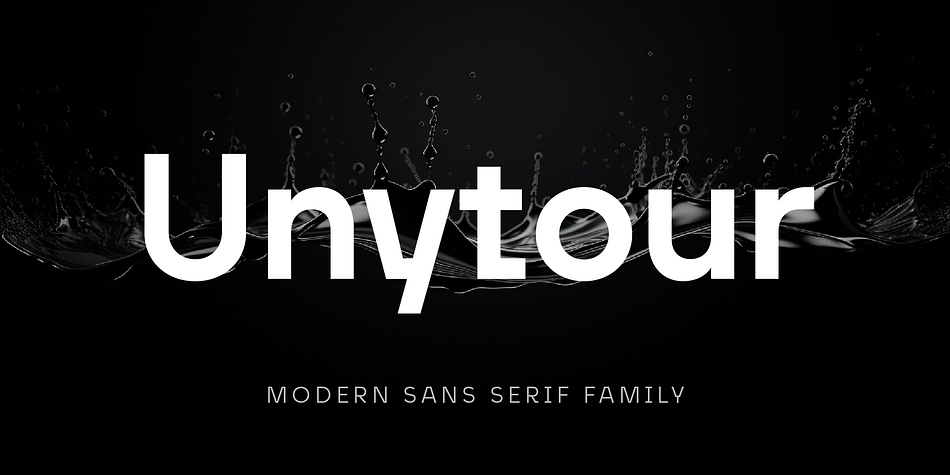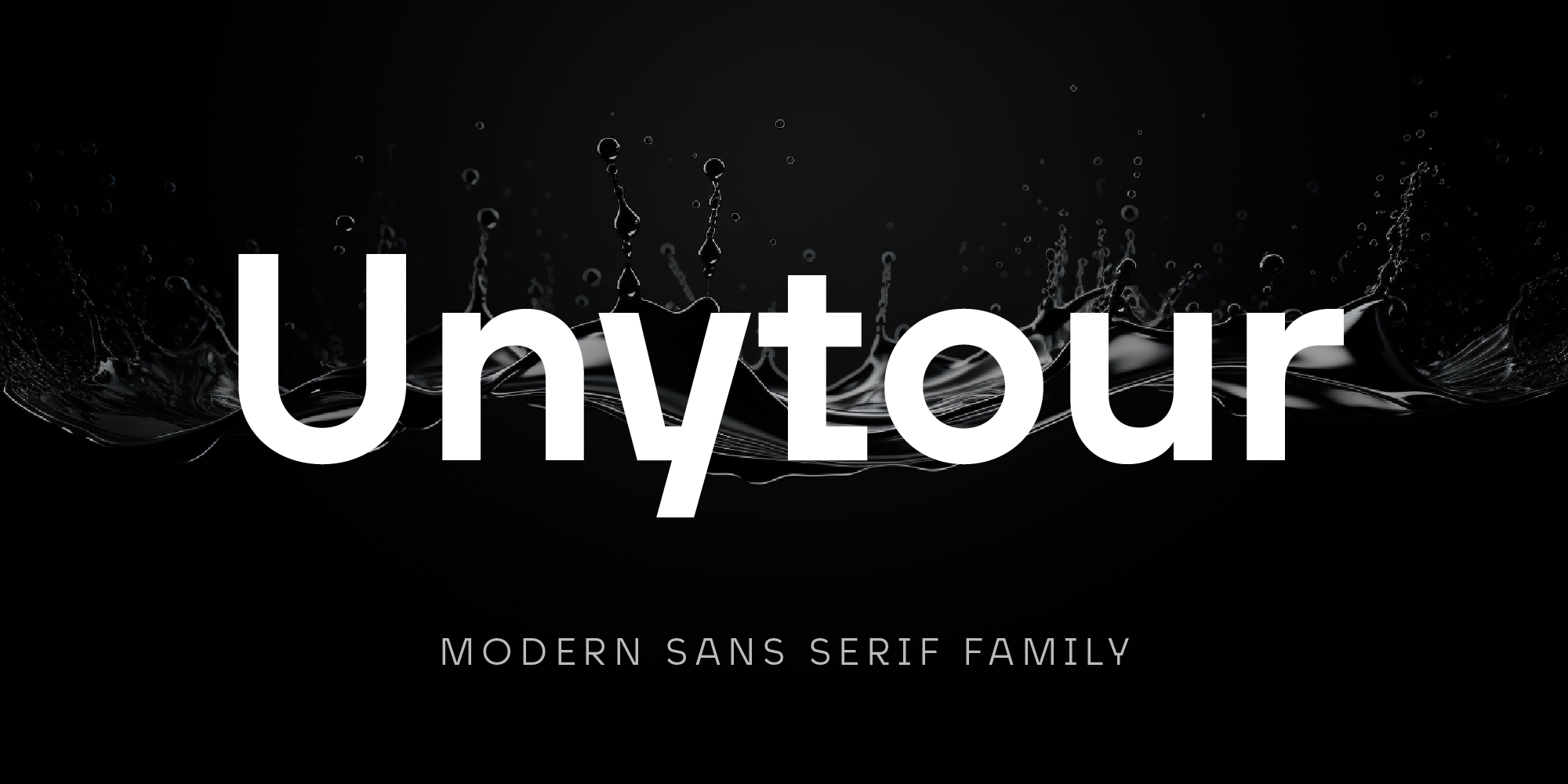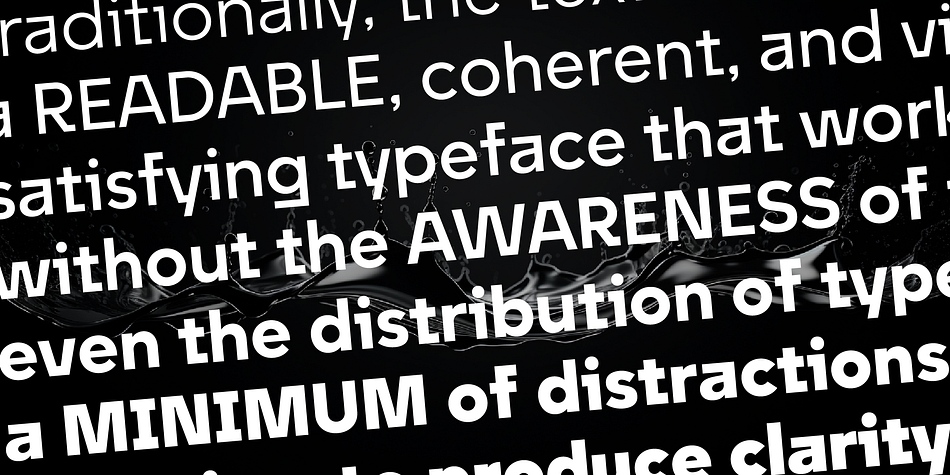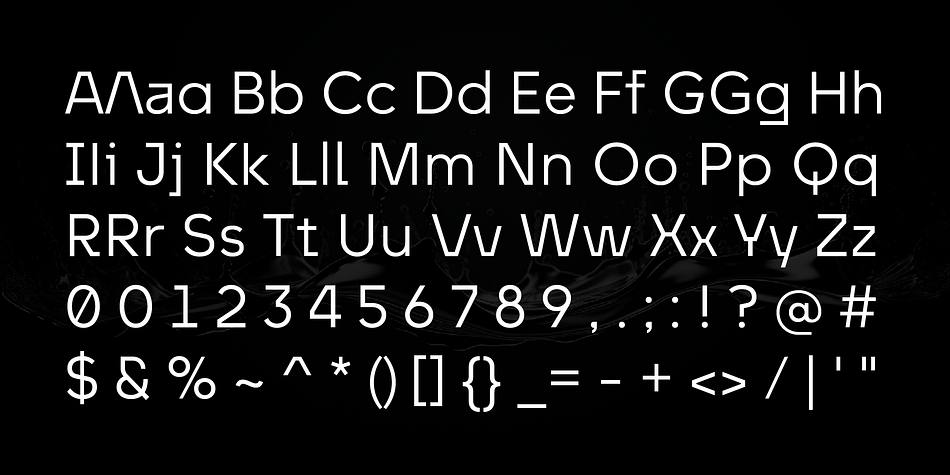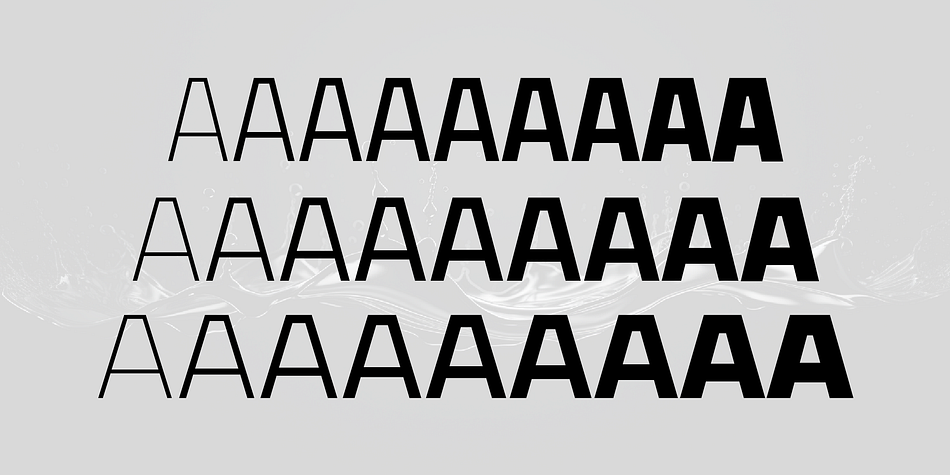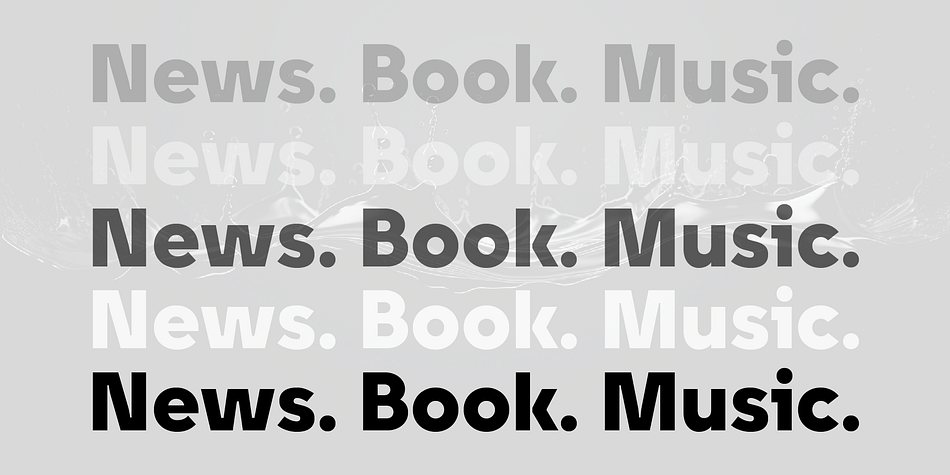
Unytour
Designed by Nikolay Savchuk, Unytour is a sans serif font family. This typeface has one hundred and fourteen styles and was published by NicolassFonts.
Unytour is a modern sans serif font family of 72 fonts.
It includes nine weights in two widths with italics from Extra Light to Heavy. Unytour Display features excellent legibility for print, as it does for reproduction on TV screens. Each weight includes alternatives(A,G,I,R,a,l) and OpenType features.
Unytour is easy to read and perfect for logotypes, advertising, packaging, book covers and magazines, headings, corporate identities, and more.